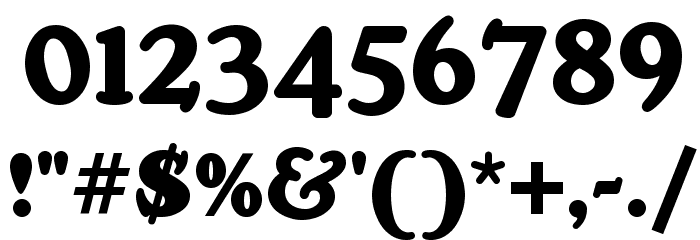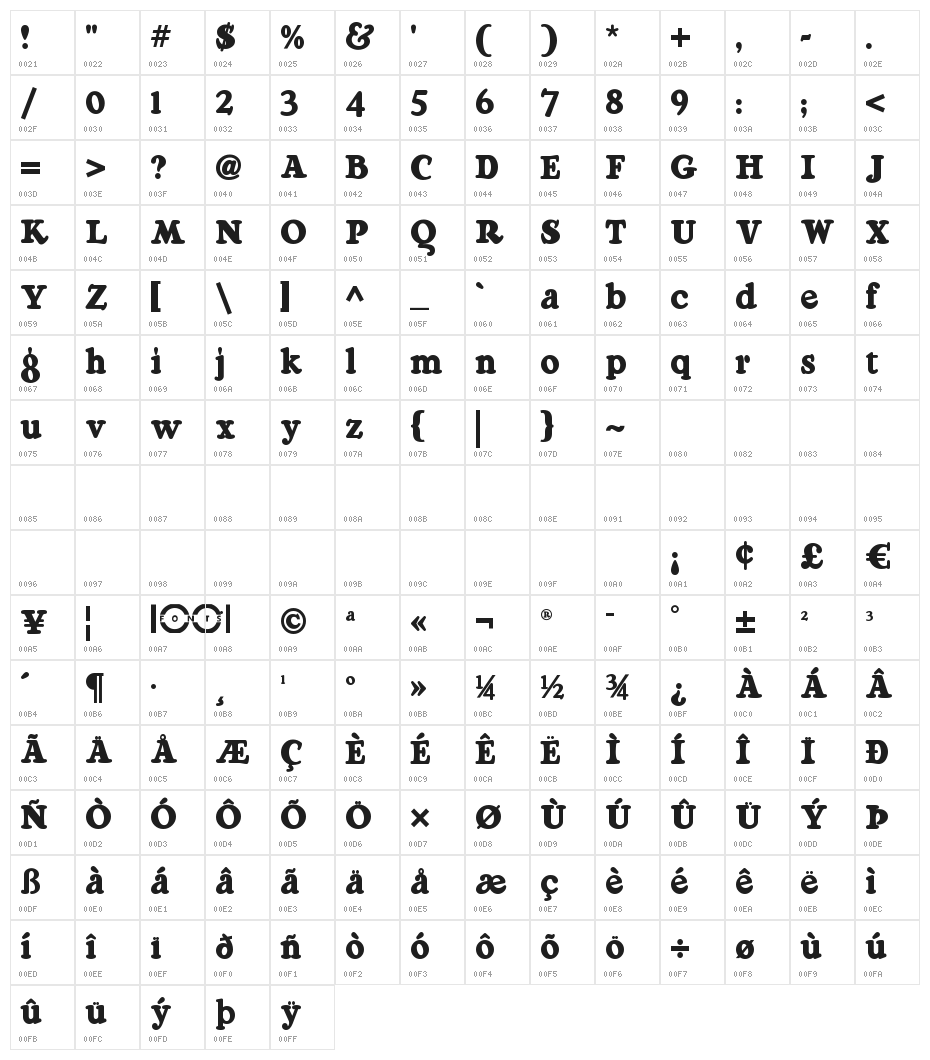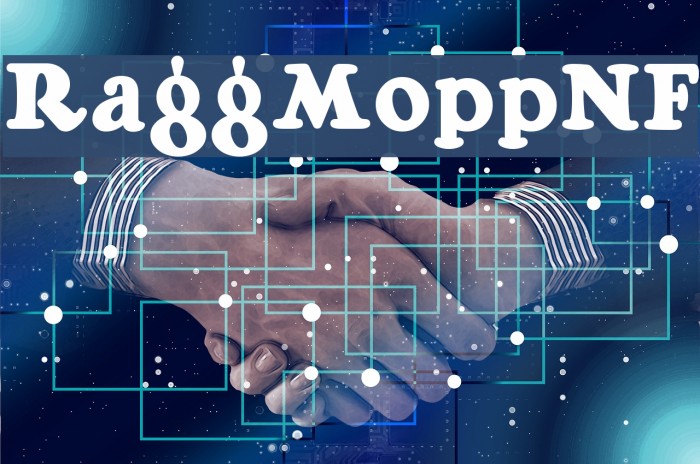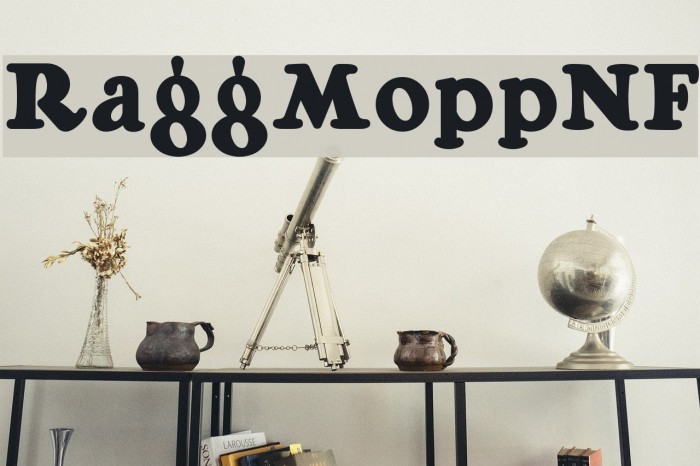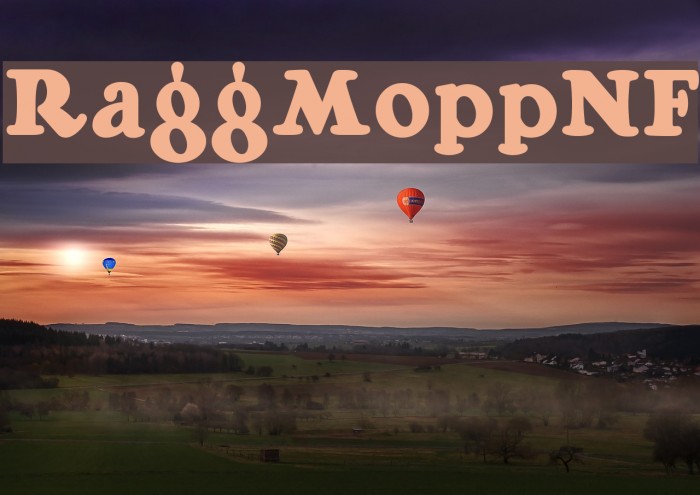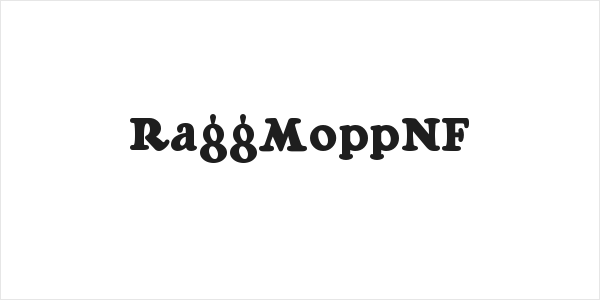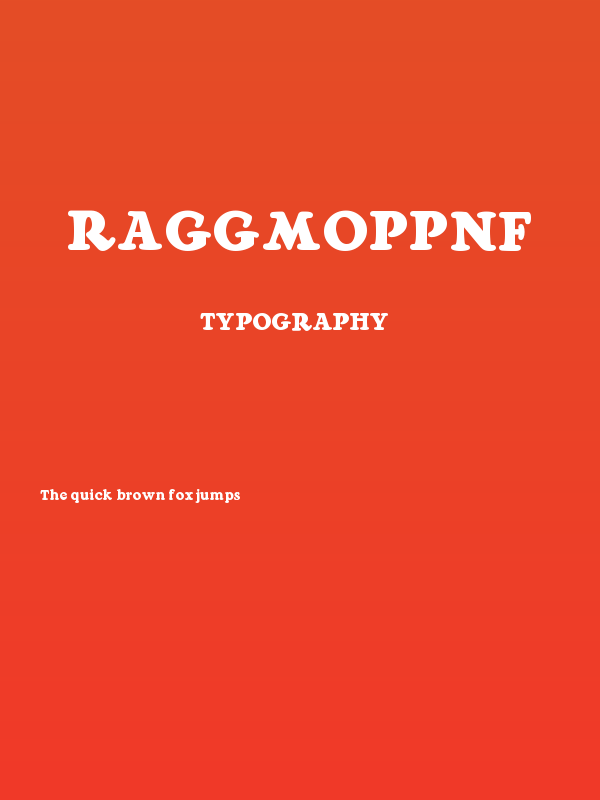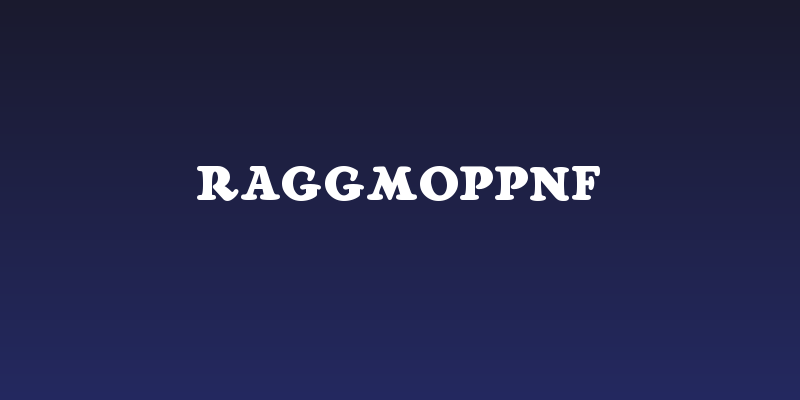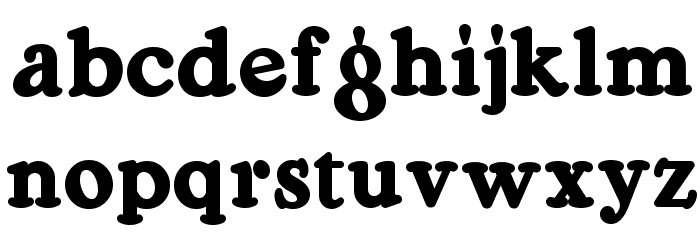
RaggMoppNF Font
RaggMoppNF Description
This font features a bold and playful design with thick, rounded serifs and a slightly condensed appearance. The characters exhibit a whimsical style, with exaggerated curves and a sense of movement that adds a lively touch to the text. The uppercase letters are robust and commanding, while the lowercase letters maintain a consistent weight, ensuring readability. The numerals are equally bold, matching the overall aesthetic of the font. Special characters are designed with the same playful flair, making them stand out. This font's unique style is perfect for projects that require a fun and engaging look.